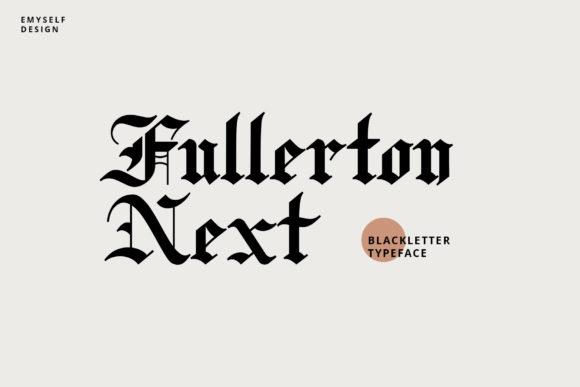
Unleash your creativity with Fullerton Next, the blackletter font that oozes vintage charm and elegance. Step into a world where classic calligraphy meets modern aesthetics, and let your designs exude a timeless appeal.
Fullerton Next is not just a font; it's an artistic journey that transports you back to an era of intricate letterforms and handwritten masterpieces. Its bold strokes and sweeping curves evoke a sense of nostalgia, while its contemporary twist ensures your designs stand out in the digital age.
Whether you're a seasoned designer or just starting your creative journey, Fullerton Next is the perfect companion for your display ads. Its legibility and versatility make it ideal for capturing attention and delivering your message with impact.
Imagine your ad headlines adorned with Fullerton Next, commanding attention with their bold presence. The carefully crafted glyphs add a touch of sophistication, inviting readers to delve deeper into your captivating content.
Fullerton Next isn't just visually stunning; it's also incredibly versatile. Its distinct character shines through in logos, posters, social media graphics, and even wedding invitations. Let your imagination run wild as you explore the endless possibilities that Fullerton Next holds.
Join the ranks of creative visionaries who have embraced Fullerton Next to elevate their designs. Its timeless beauty and modern appeal have made it a favorite among artists, designers, and businesses worldwide.